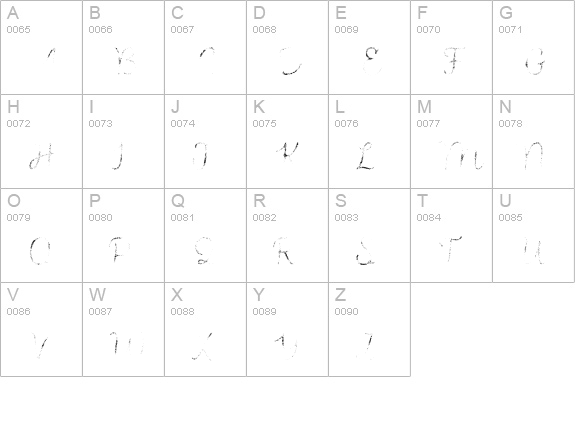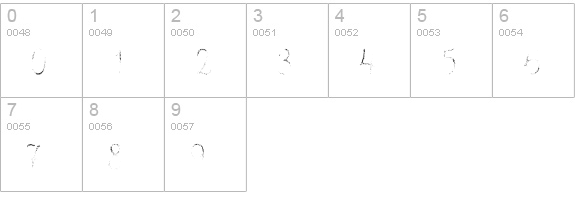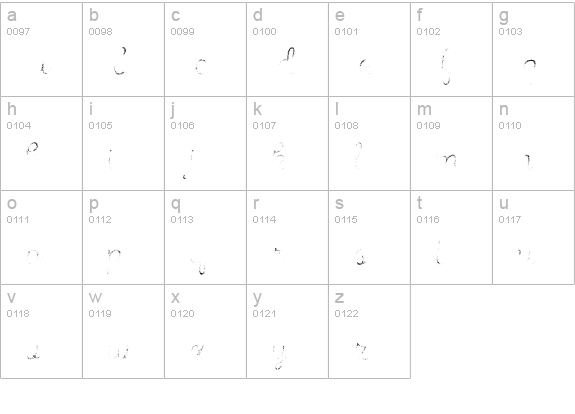
Intro Script R G Font Details
The Intro Script R G font is a stunning calligraphy style typeface that exudes elegance and sophistication. With its graceful flowing lines and intricate details, this font is perfect for adding a touch of class to your designs. Whether you're creating wedding invitations, greeting cards, or branding materials, Intro Script R G will elevate your project to the next level. Best of all, the Intro Script R G font is completely free to download at FontsMarket.com. This means you can access this beautiful font without having to spend a dime. Don't miss out on the opportunity to enhance your designs with the timeless charm of Intro Script R G. Download it today and let your creativity shine!